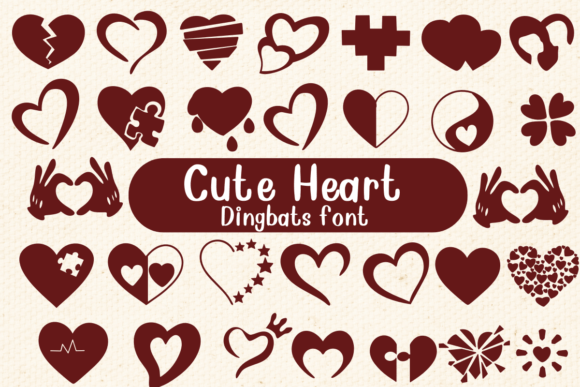
Cute Heart Font Download Dingbats Fonts
Cute Heart Font Download Dingbats Fonts: When you want your designs to radiate sweetness, charm, and pure affection, there’s nothing more delightful than Cute Heart Font. As the name suggests, this playful typeface is filled with adorable heart shapes woven seamlessly into its characters. Whether you’re working on a romantic project, a children’s party invitation, or an adorable social media post, this font adds a sprinkle of joy and emotion in every letter.
If you’re a designer, crafter, or hobbyist who loves infusing warmth into visual projects, the Cute Heart Font is a must-have in your creative toolkit. Let’s dive deeper into what makes it stand out, how you can use it, and where it works best.
Why Choose Cute Heart Font?
Fonts aren’t just about letters—they carry emotion. The Cute Heart Font has a unique personality that goes beyond plain text. Here’s why it’s so appealing:
1. Heart-shaped Embellishments – Every character features decorative heart elements, giving your words an instant romantic and friendly vibe.
2. Playful and Whimsical – Perfect for fun, lighthearted, and love-themed projects.
3. Versatile Use – While it screams Valentine’s Day, you can use it year-round for anything that needs warmth and charm.
4. Digital & Print Friendly – Works perfectly in both small and large sizes, making it suitable for digital designs, posters, or physical crafts.
Design Features of Cute Heart Font
The Cute Heart Font is not just a regular typeface—it’s an artistic tool for creative expression. Some of its design highlights include:
• Bold yet Friendly Lines – The rounded edges make it approachable and easy on the eyes.
• Balanced Spacing – Ensures your text looks well-proportioned, even when adding decorative hearts.
• High Readability – Despite the ornamental details, it remains clear and easy to read.
• Multiple Heart Styles – Depending on the variation you choose, some letters may feature single hearts, clusters, or stylized patterns.
Perfect Scenarios to Use Cute Heart Font
Cute-Heart-Fonts
The beauty of this font lies in its adaptability. Here are some of the best ways to put it to use:
1. Valentine’s Day Projects
Cards, love letters, event invitations, and romantic gift tags look absolutely stunning when written in Cute Heart Font.
2. Wedding Stationery
From save-the-date cards to seating charts, this font adds a whimsical touch to wedding printables.
3. Children’s Party Invitations
The playful vibe works perfectly for birthday parties, baby showers, and school events.
4. Social Media Graphics
If you run an Instagram or Pinterest page related to love, lifestyle, or events, this font will make your posts pop.
5. Craft Projects
Perfect for Cricut or Silhouette projects, vinyl stickers, and handmade decorations.
Tips for Using Cute Heart Font Effectively
While this font can easily stand out, here are a few tips to make your designs look even better:
• Pair with Simple Fonts – Since Cute Heart is decorative, pair it with minimal sans-serif fonts for balance.
• Use in Short Texts – Best suited for headlines, titles, and short phrases rather than long paragraphs.
• Play with Colors – Soft pinks, reds, and pastels enhance its romantic charm, while bright colors can give it a fun, playful edge.
• Avoid Overcrowding – Give the letters space to breathe so the heart shapes can shine.
Pairing Ideas for Cute Heart Font
If you want to elevate your design, try pairing this font with:
• Montserrat – Clean and modern, it balances the decorative nature of Cute Heart.
• Roboto – A versatile sans-serif that keeps things professional yet friendly.
• Playfair Display – Adds elegance when paired with Cute Heart for romantic invitations.